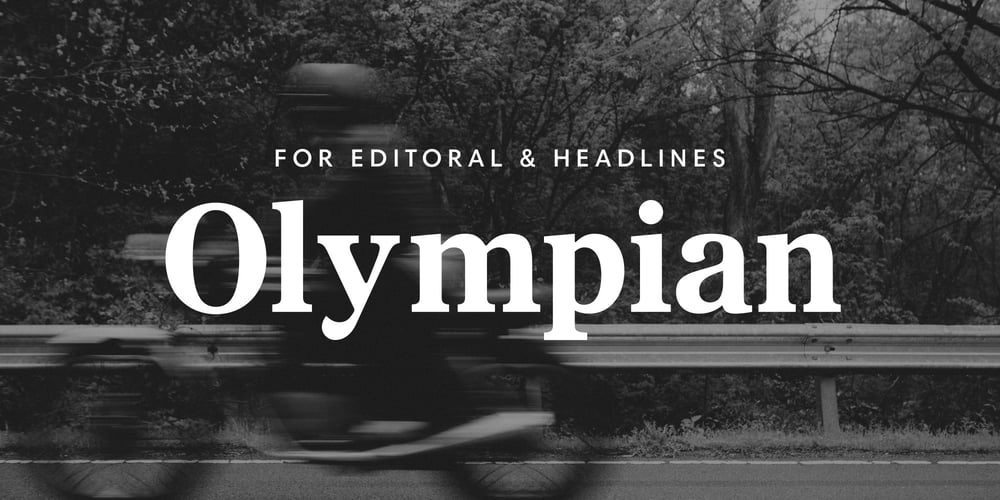
Olympian
Olympian font
Olympian Font Family was designed by Matthew Carter and published by Linotype. Olympian contains 4 styles and family package options. After the Second World War, the Ionic style replaced Modern Face as the favored typeface for newsprint. A couple decades later, it was in turn replaced by the next generation of newspaper fonts, a mix of Old Face, Transitional and Modern Face forms. Olympian itself tends toward the Old Face style but is nevertheless an example of this new generation, a result of a time of change and experimentation.